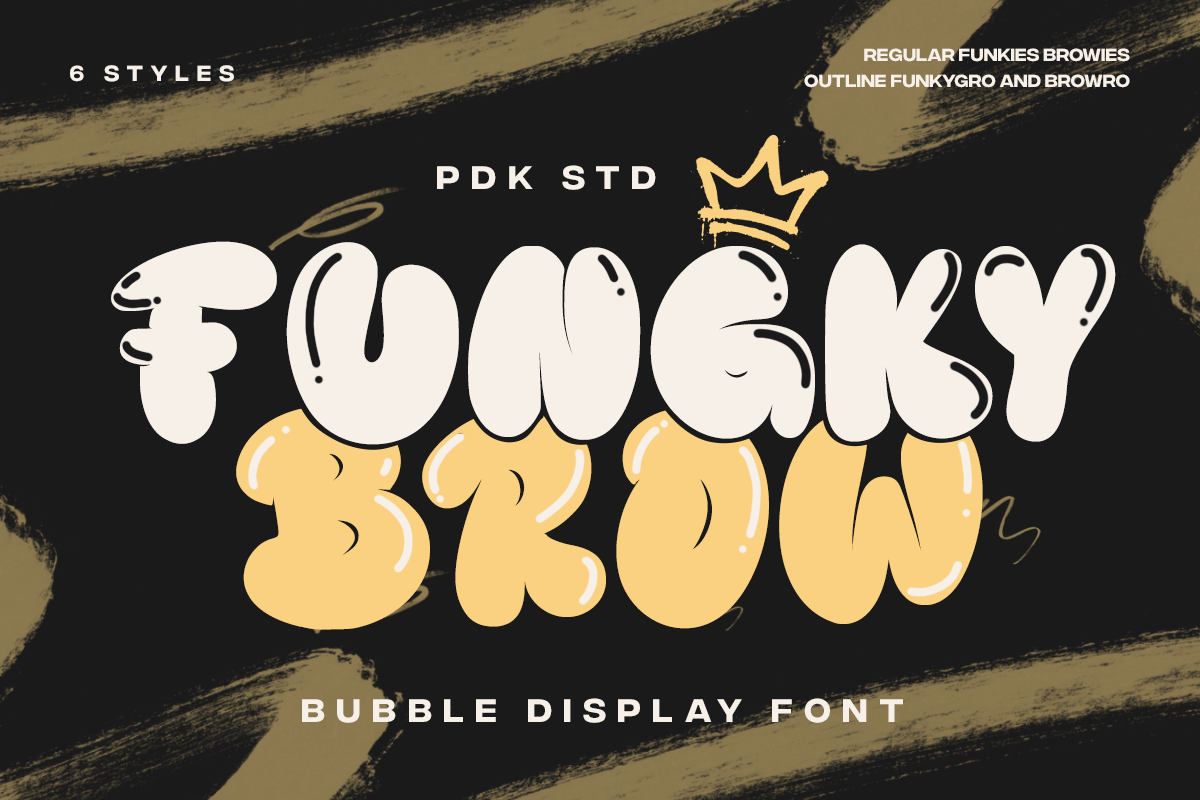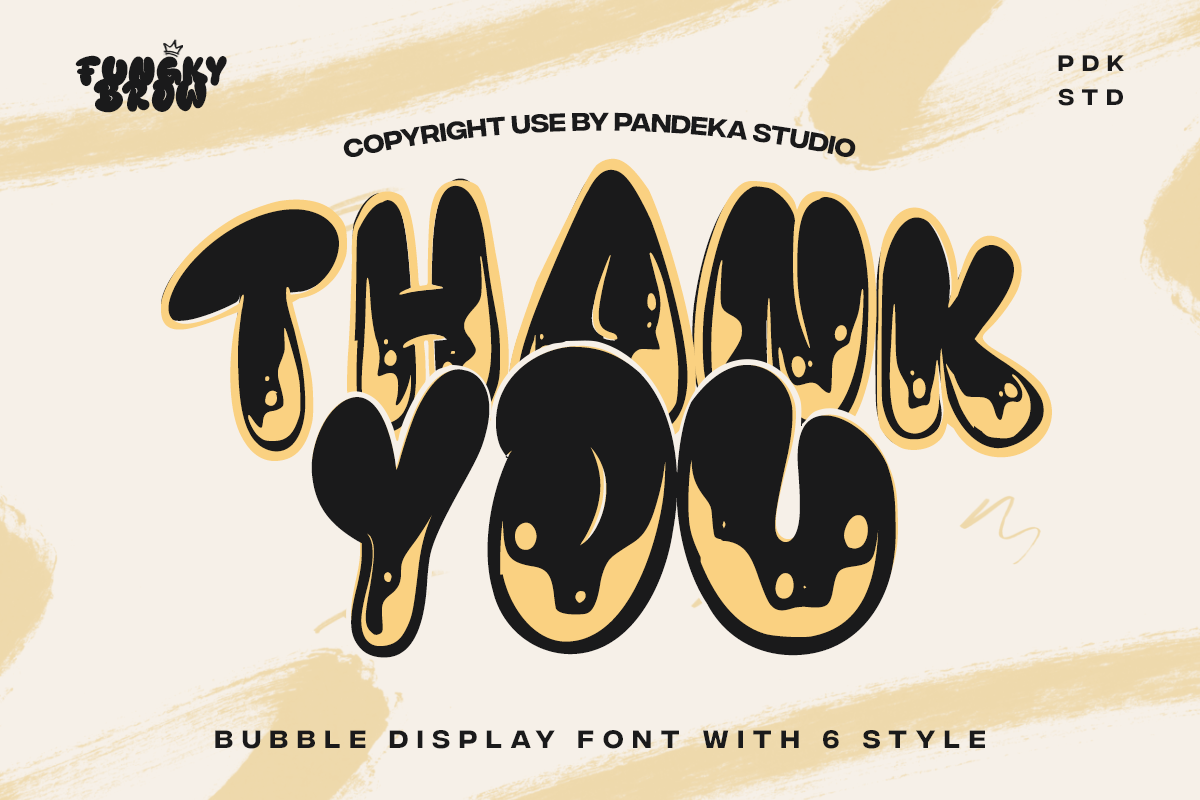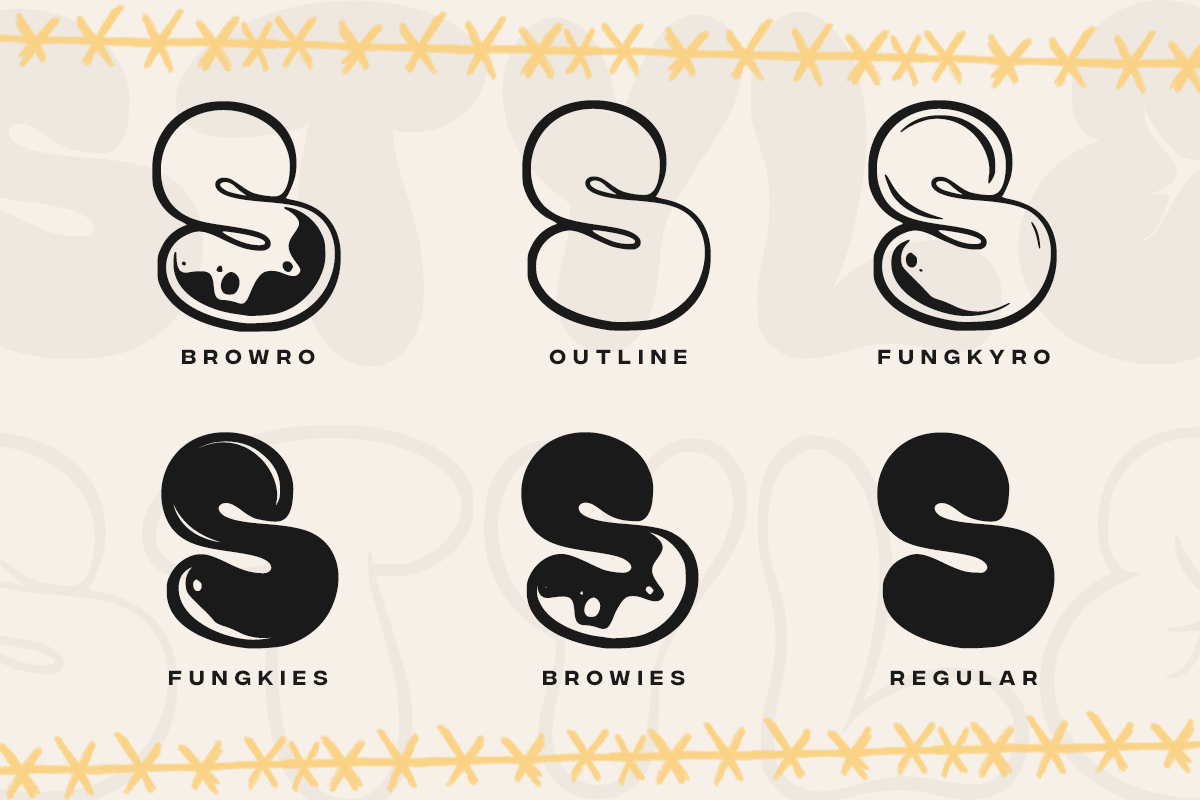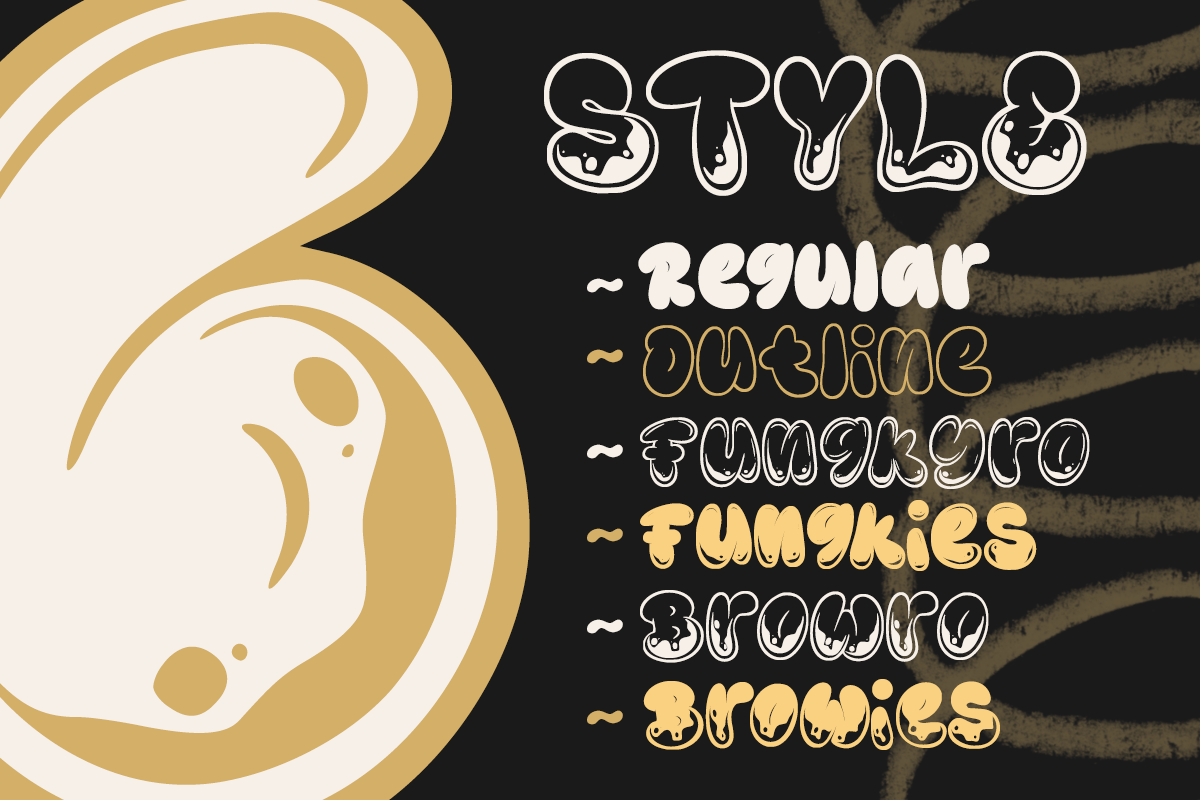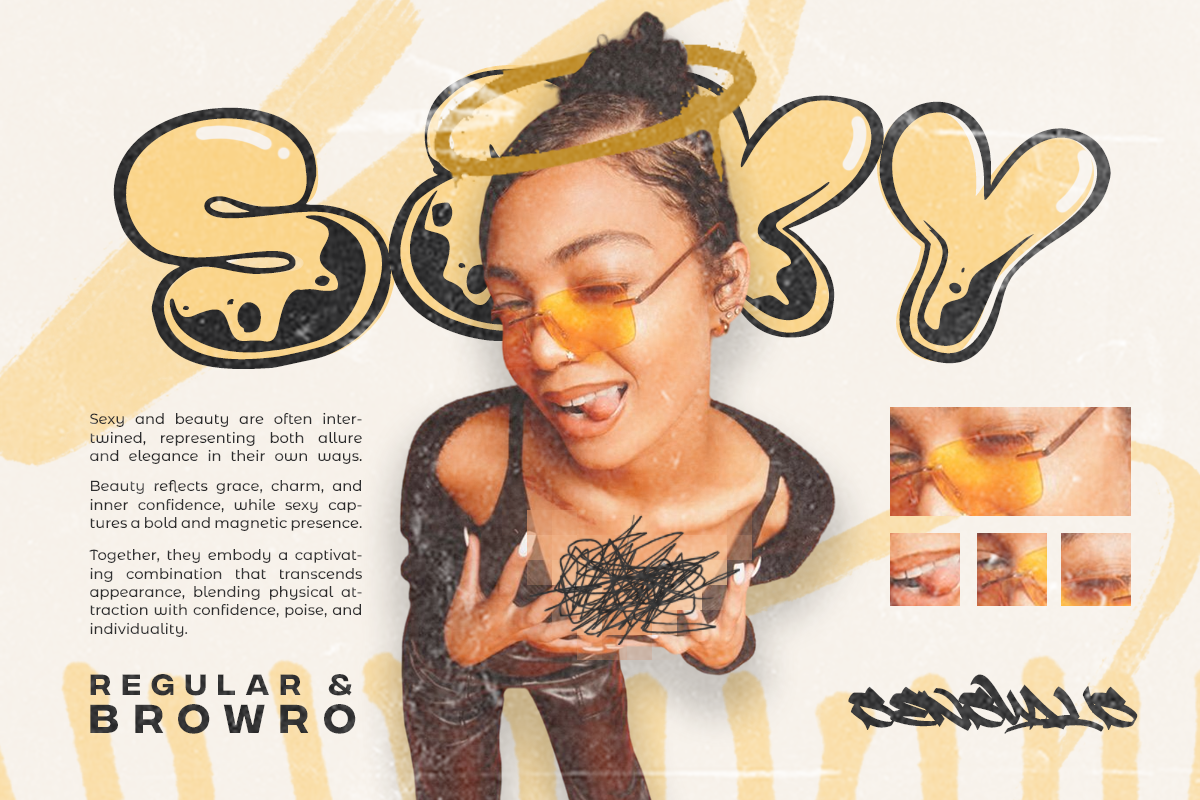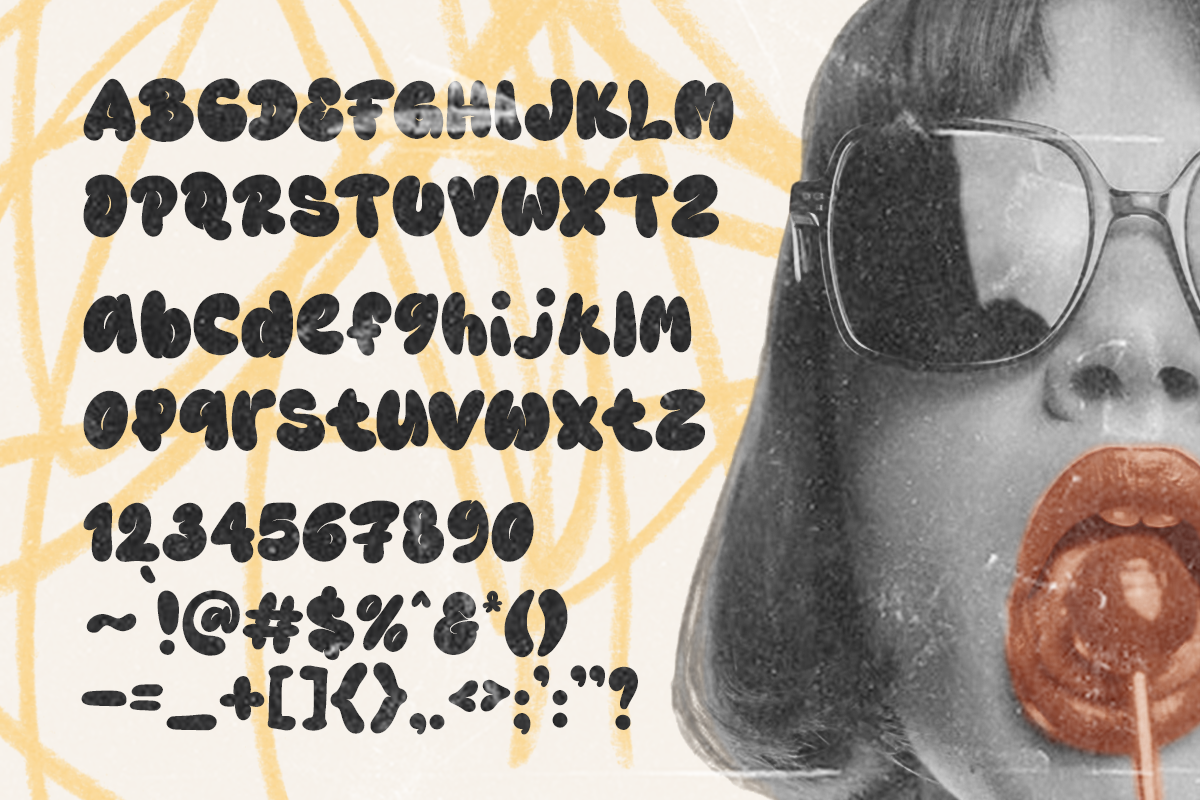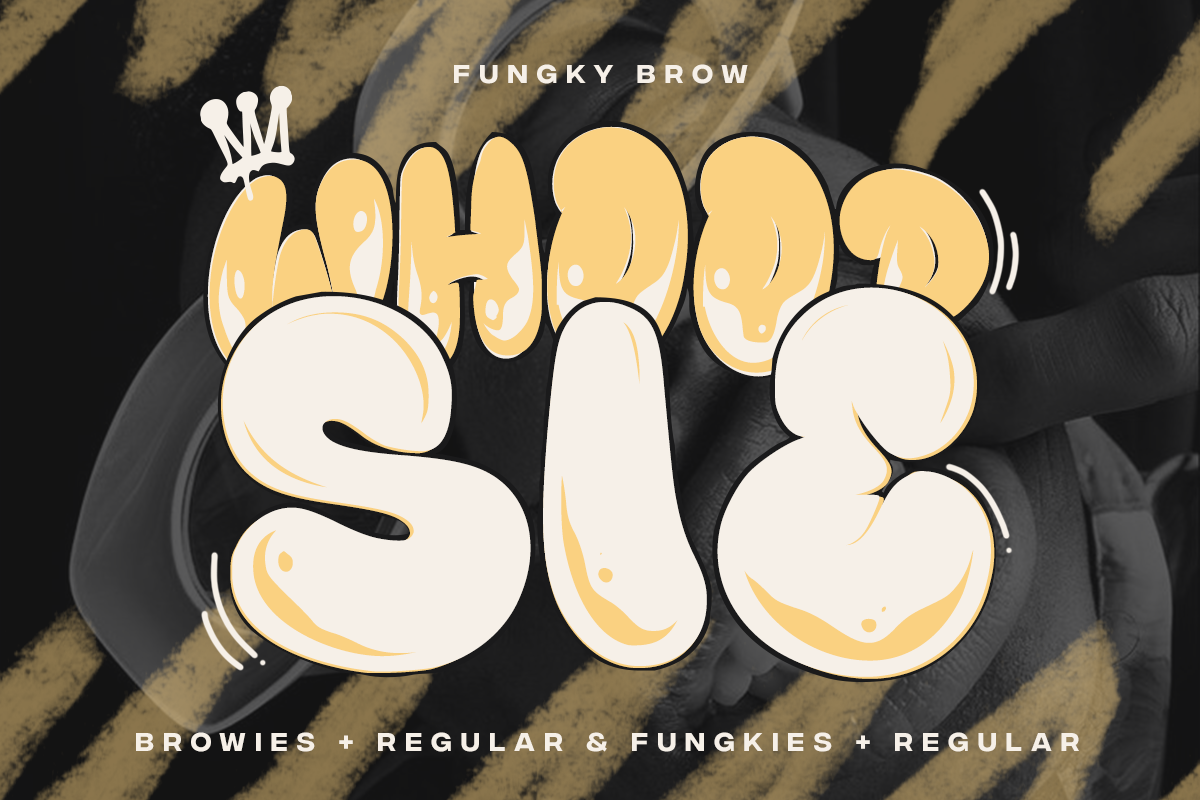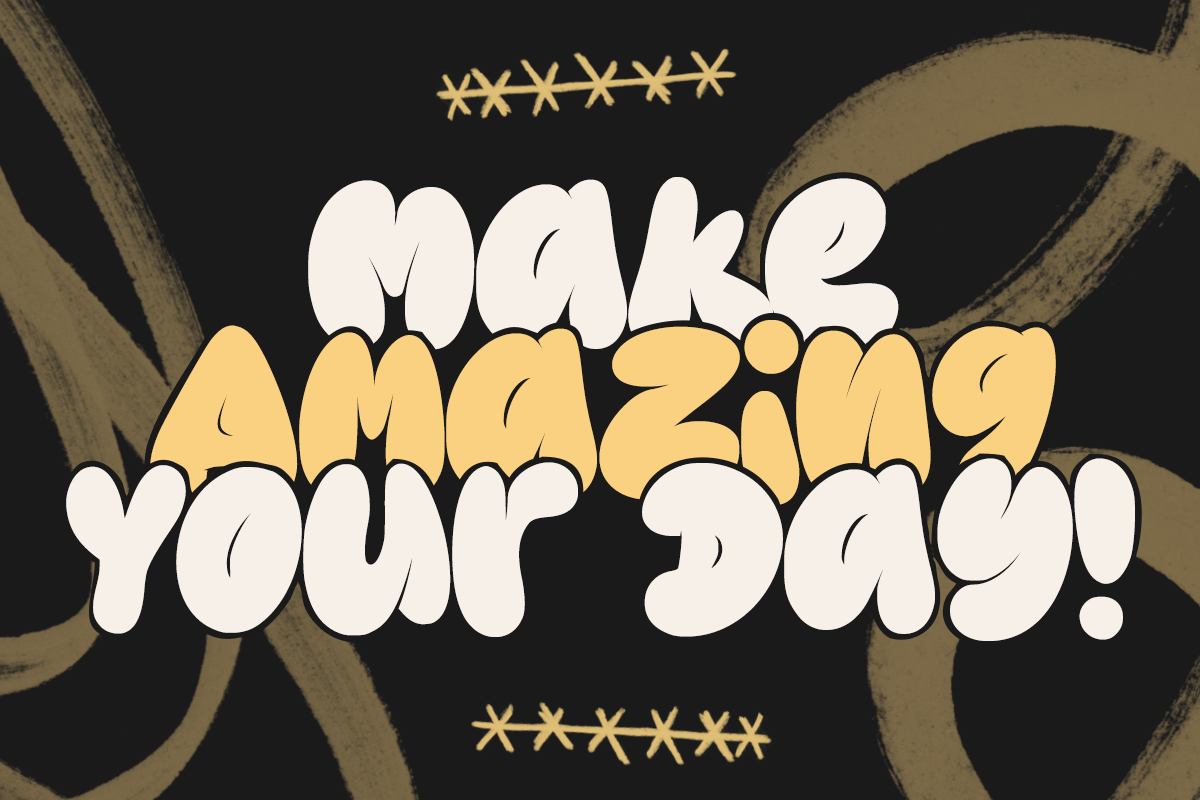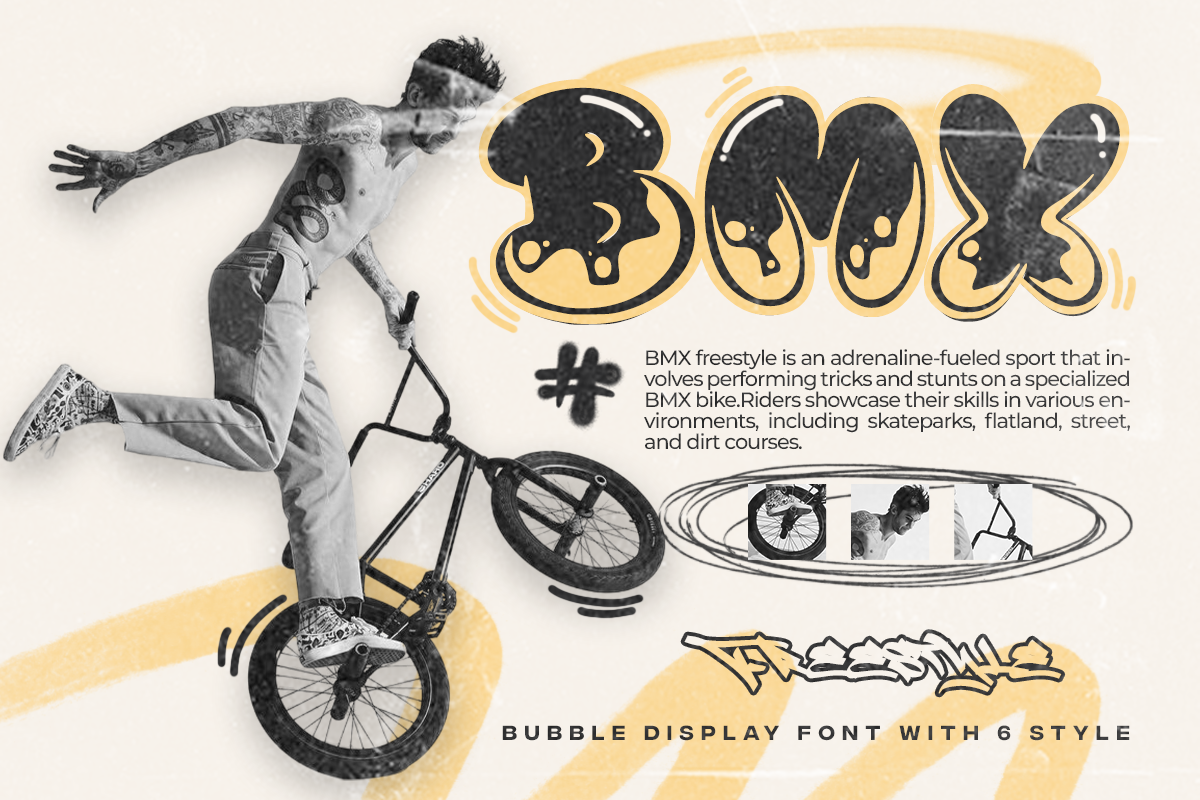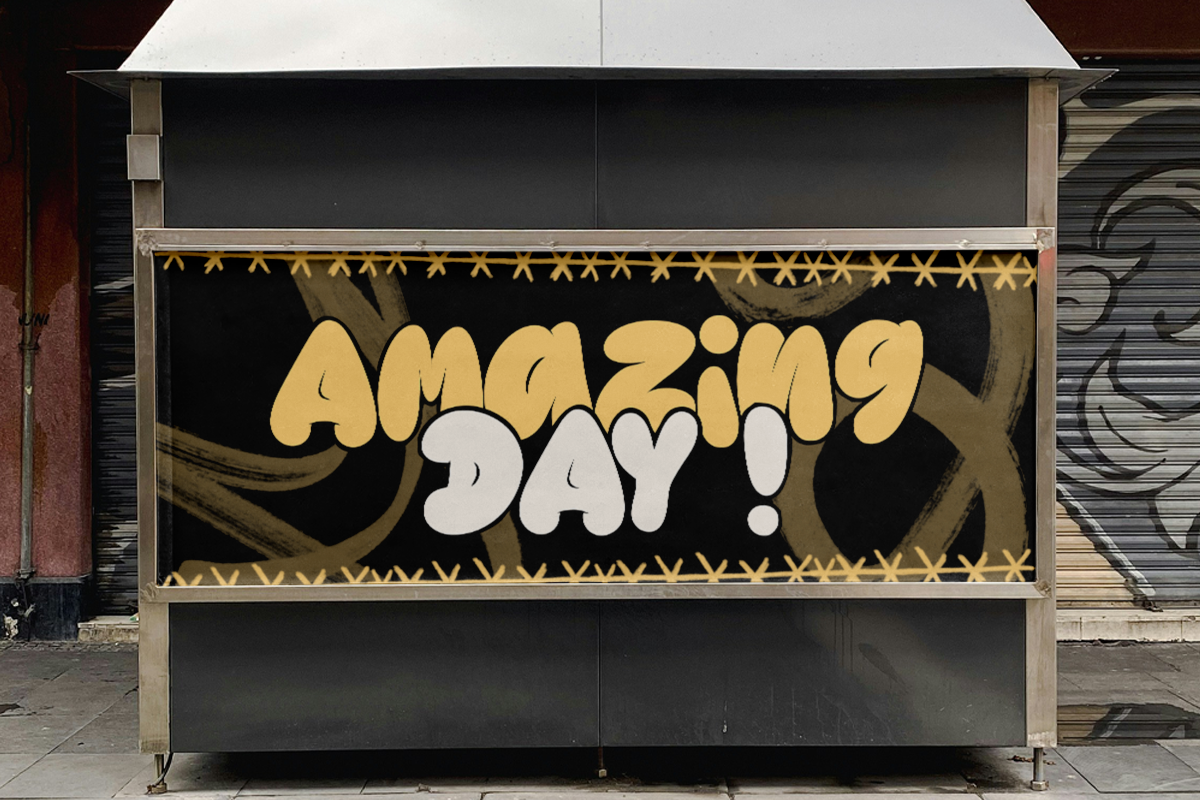
Funky Brow - Bubble Graffiti Font
Introducing Funky Brow, a lively bubble graffiti font that injects energy and personality into your designs. With six unique styles—Regular, Funkies, Browies, Outline, Funkygro, and Browro—this font family brings a fresh twist to bubble-inspired typography, ideal for graffiti art and streetwear.
Each style offers a distinct flair: Regular provides a clean base, Browies adds a “drop bubble” effect, and Funkies amplifies it with bolder accents. Outline gives a classic graffiti outline, Browro merges outline with drop bubbles, and Funkygro goes big with bold drop bubbles, perfect for creating standout designs.
- 6 style : Regular, Funkies, Browies, Outline, Funkygro and Browro
- Unique letterforms